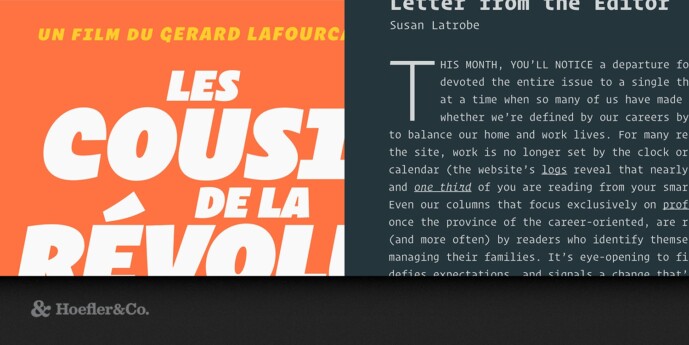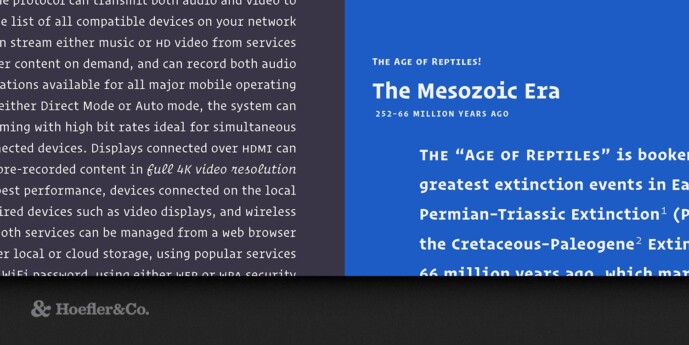
Operator Font Family
Designer: Hoefler & Co.
Operator Font Family a typeface rooted in the traditions of typewriting, Operator is designed to offer a new voice for designers, and a new tool for developers.
The Operator typeface was designed by Andy Clymer with Jonathan Hoefler in 2016. A highly personal exploration of the ‘monospace’ aesthetic, in which all letterforms are designed to share a common width, Operator draws inspiration from a range of fixed-width technologies including typewriters and vinyl tape embossers. The family includes both the fixed-width Operator Mono, designed for writing code, and the natural-width Operator that relaxes the rules while preserving the style.
From the desk of the designer:
Typesetting is formal, handwriting is informal, and halfway in between is typewriting. Though typewriters haven’t been a fixture of our lives for decades, the look of typewritten letters is still instantly recognizable, making them an indispensable tool for designers. People always choose typewriter faces when they want readers to look past the anonymity of writing, and focus instead on the voice behind the words: the letter from the editor, the solemn report, and the charitable appeal are forever the province of the typewriter font. And because they strike a useful balance between earnestness and down-home charm, they’re perfect for text that risks taking itself too seriously, from corporate communications to cocktail menus.
But actual typewriter faces are notoriously difficult to work with. They never have the broad range of weights that designers need (let alone features like small caps), and their italics are rarely either distinctive or interesting. Their fixed-width construction — the requirement that each letter have the same horizontal dimension — gives them their interesting and recognizable artifacts (an I with long serifs, a squeezed M, and so on), but also disrupts the rhythm of text. What a designer ideally needs is a fully-fledged family of typefaces with the voice of typewriting, but none of its limitations, which is why we designed Operator.
Operator builds on the aesthetic of typewriting, but sheds these mechanical constraints. Instead of fixed widths, it has natural widths, allowing letters to expand and contract to their traditional proportions. For situations that truly demand a fixed-width design, we created a companion family called Operator Mono. Operator Mono pushes the bounds of the style, offering a solid range of weights and colorful italics, both features that recommend the design for programming environments. In this short film, you’ll see how the needs of developers and designers came together in the Operator family.